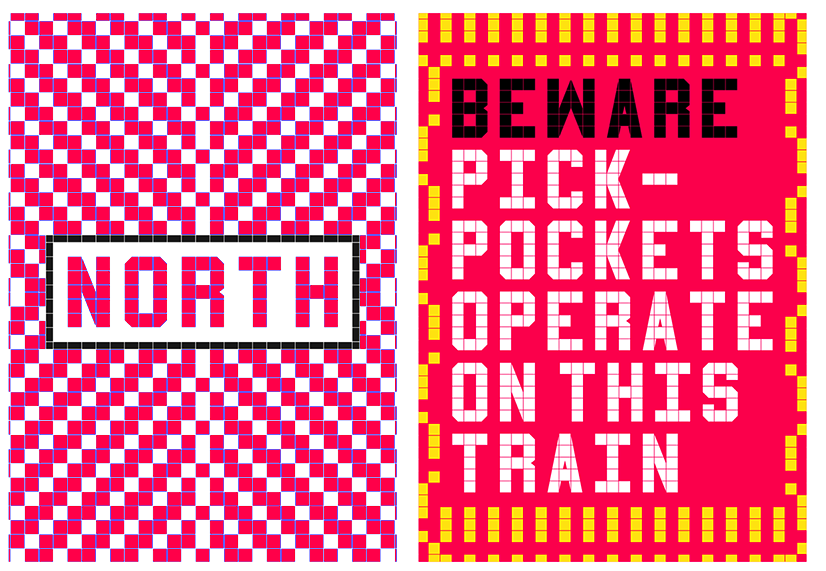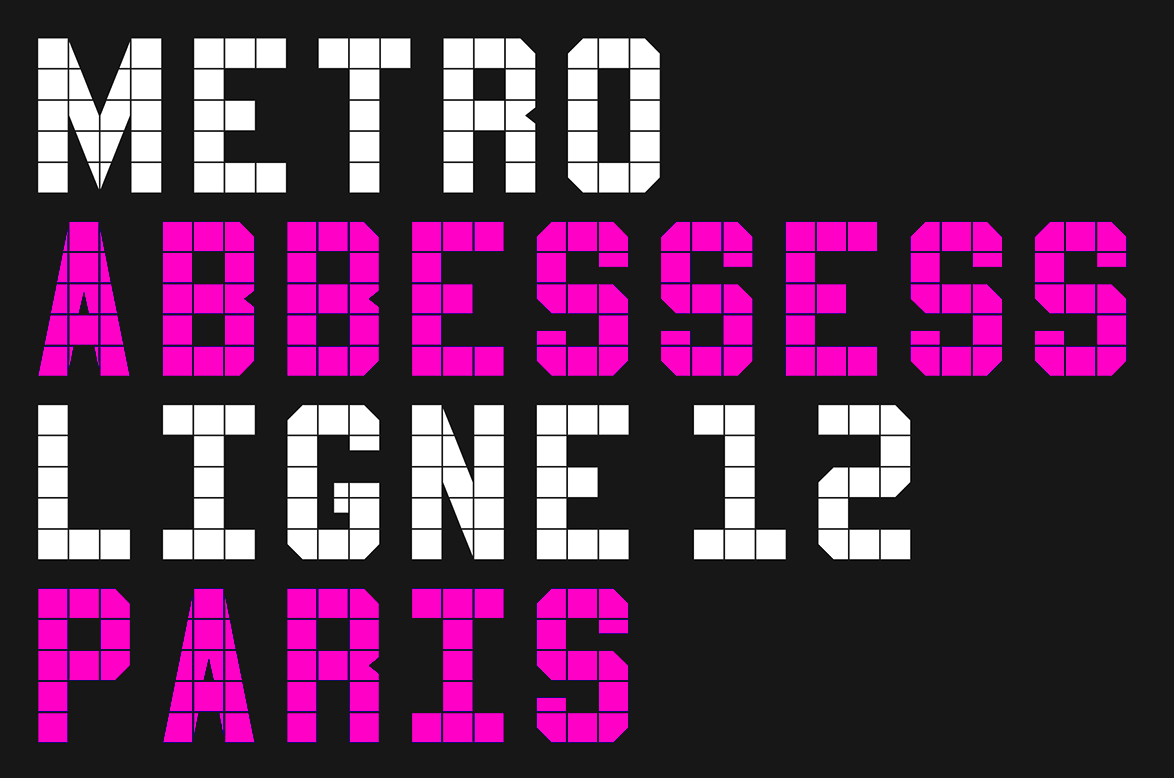
Dominic Davidson-Merritt
Paris-based designer of the kitchen tile font Abbesses (2015). His inspiration though came from the French subway signs: Typographic play inspired by the tile metro signs on my commute and shitty metro posters. Behance link. |